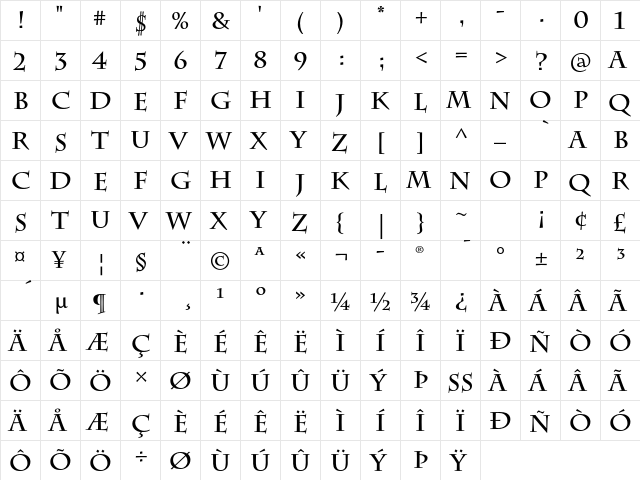
Charlemagne Std Bold
| Designer | Carol Twombly |
Design Context for Charlemagne Std Typeface
Charlemagne Std offers clean, dependable letterforms without strong stylistic allegiance, making it a practical choice for designers who need flexibility. The heavy weight commands attention and anchors typographic hierarchies.